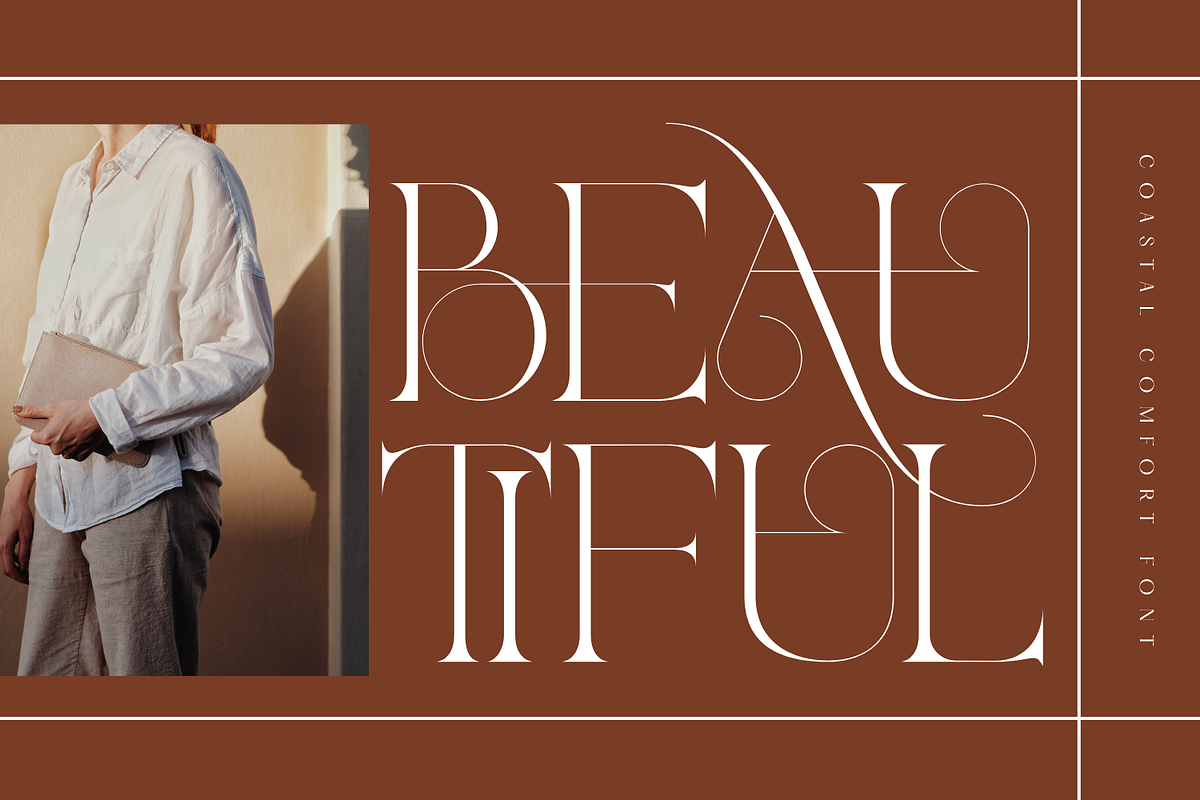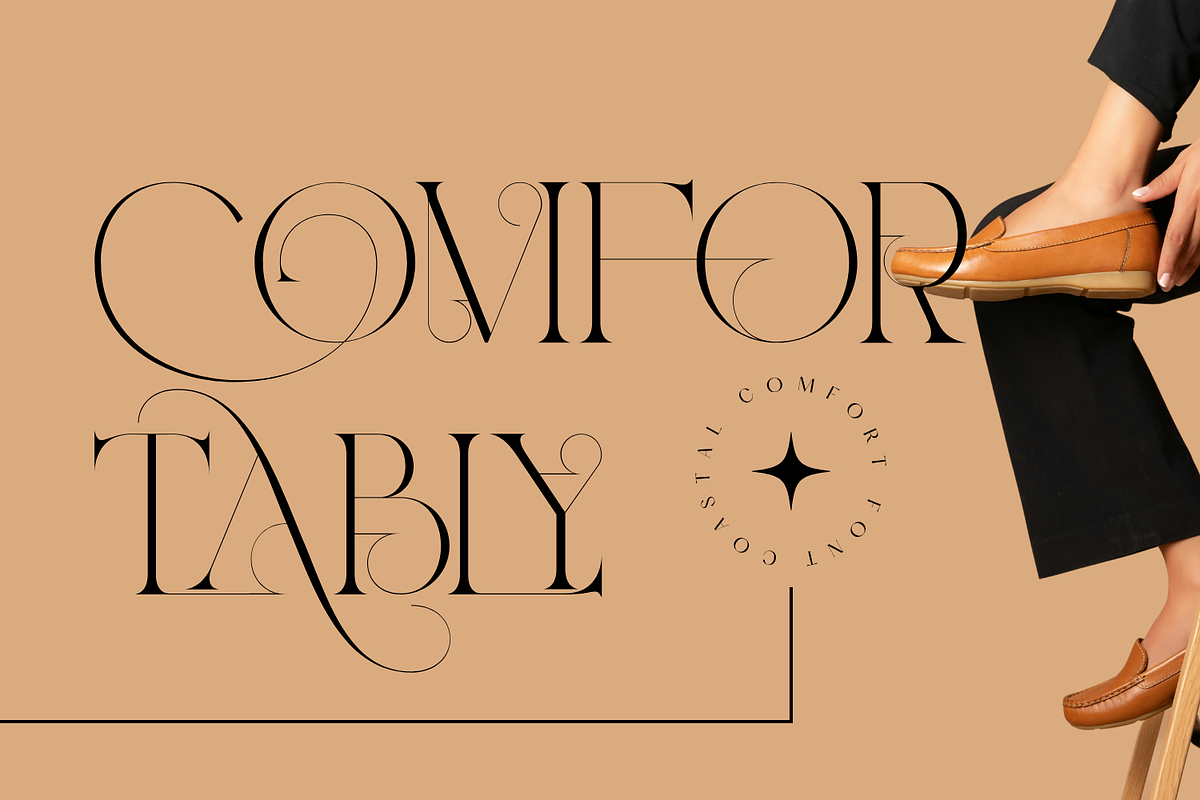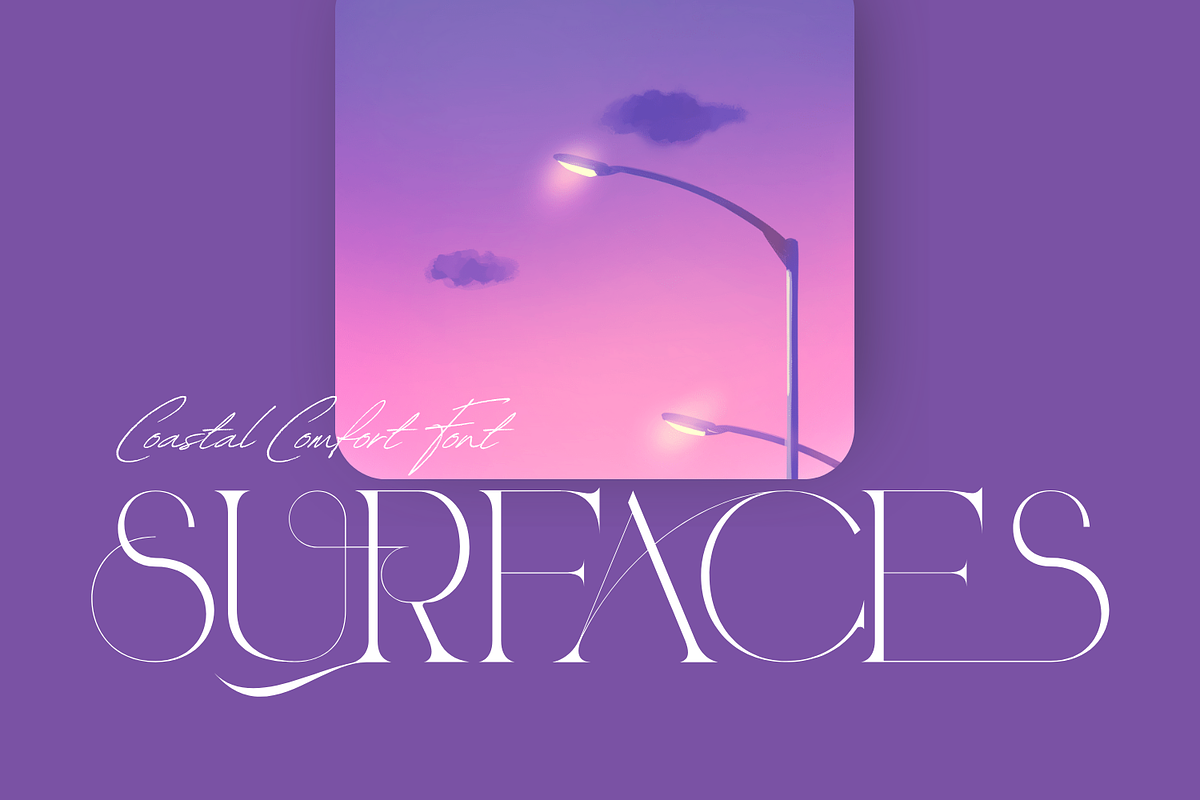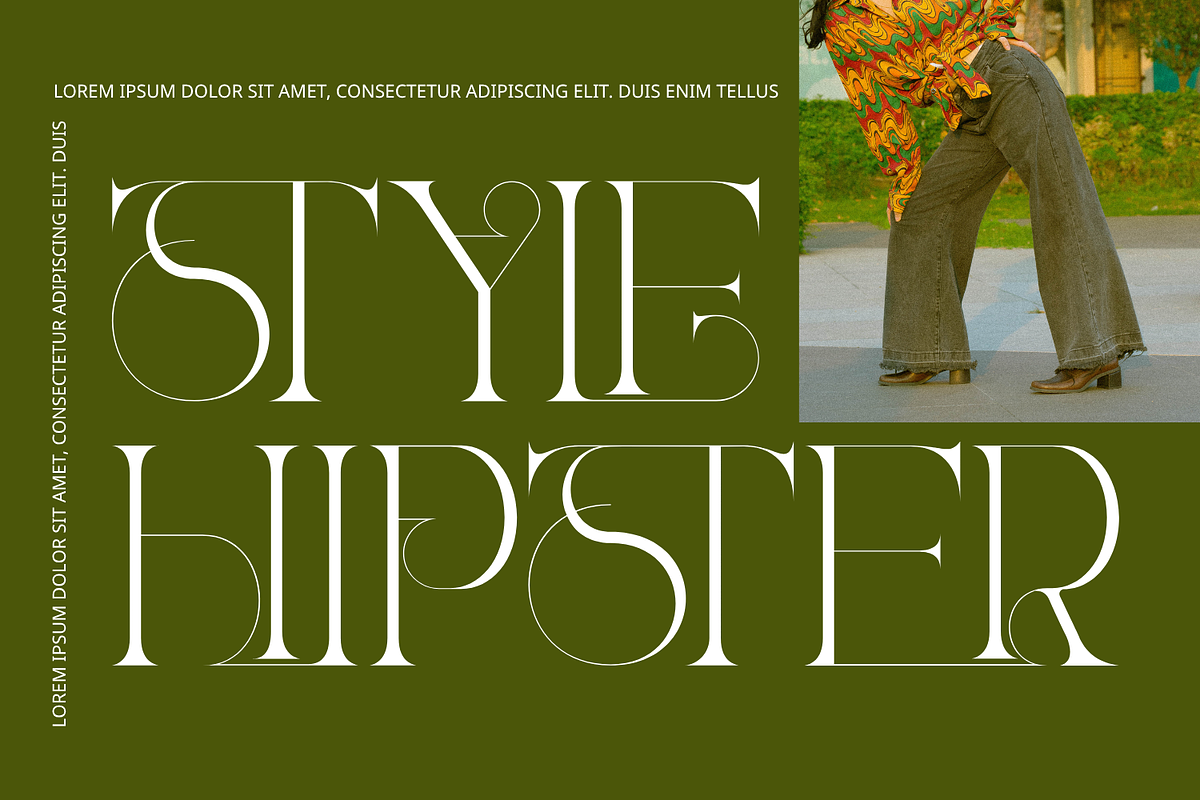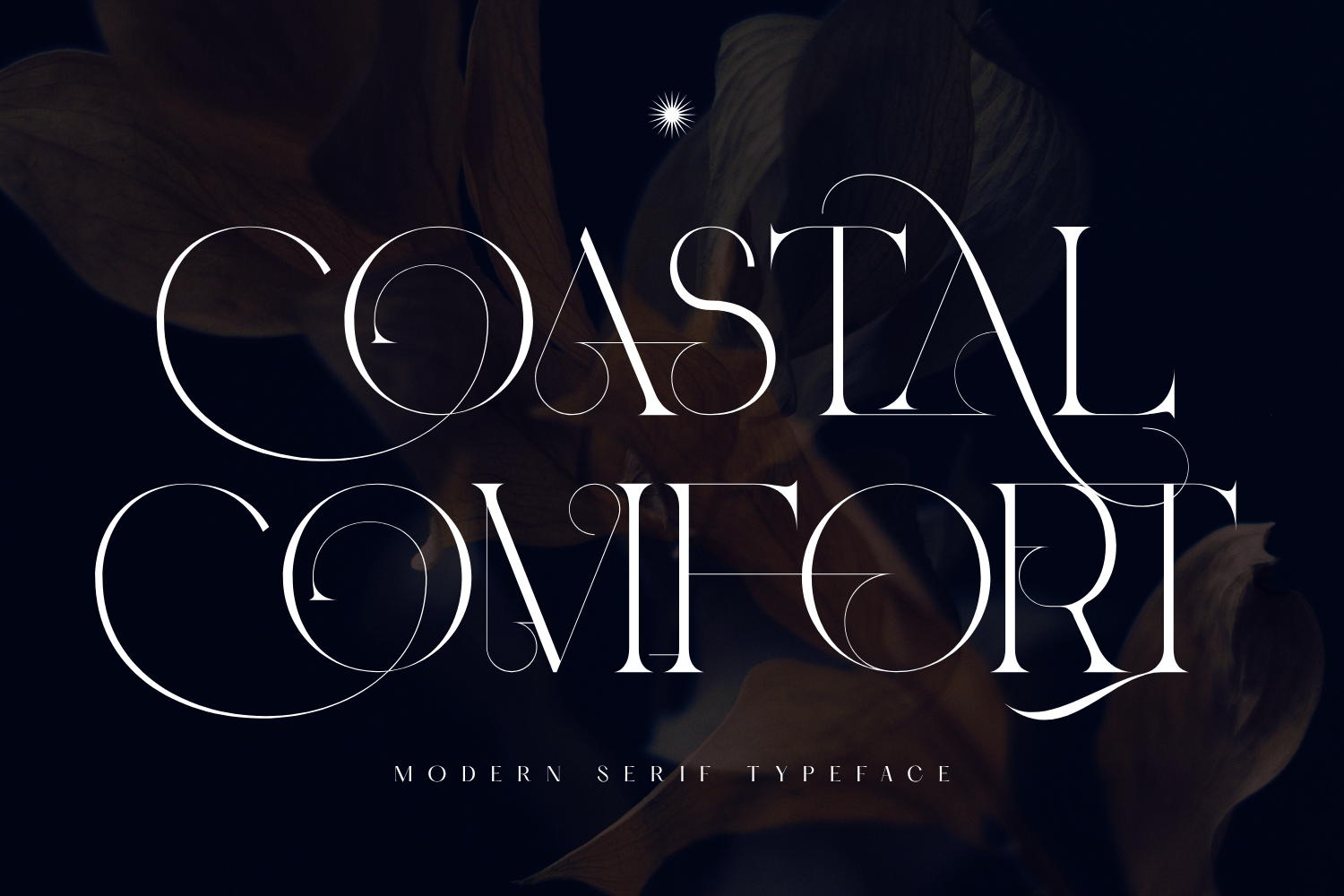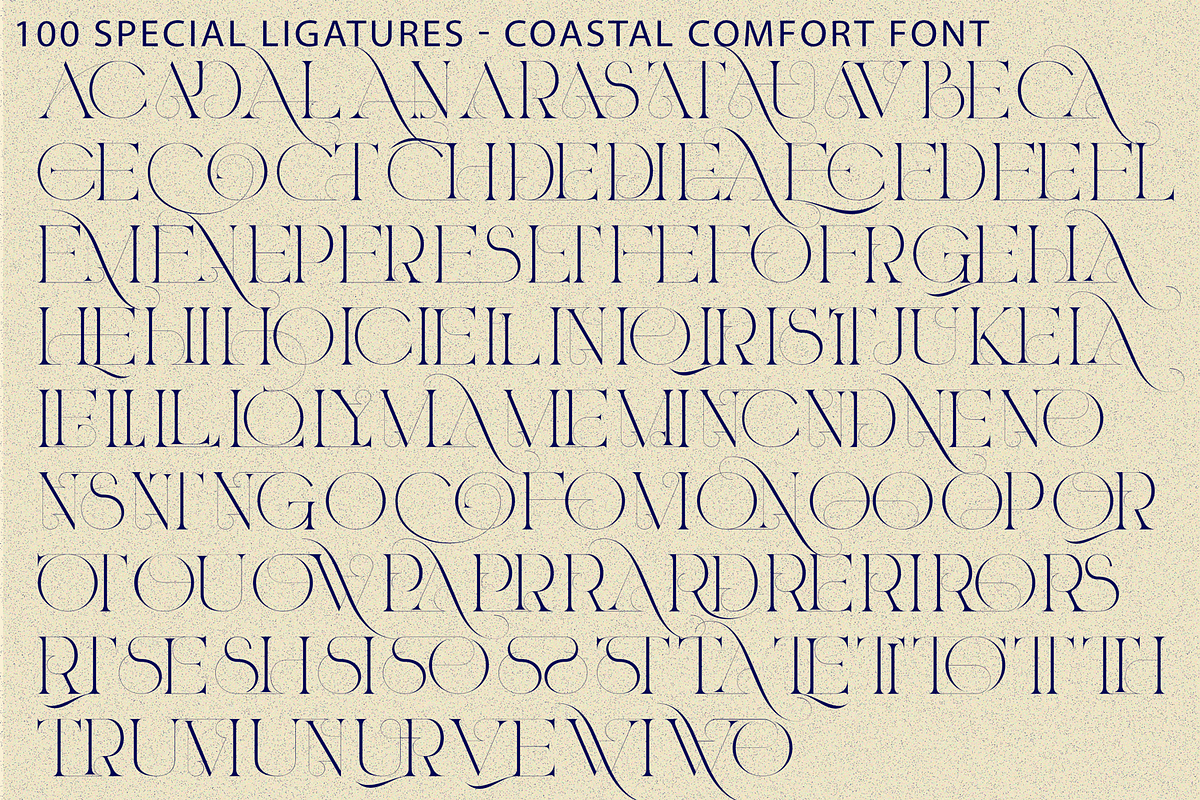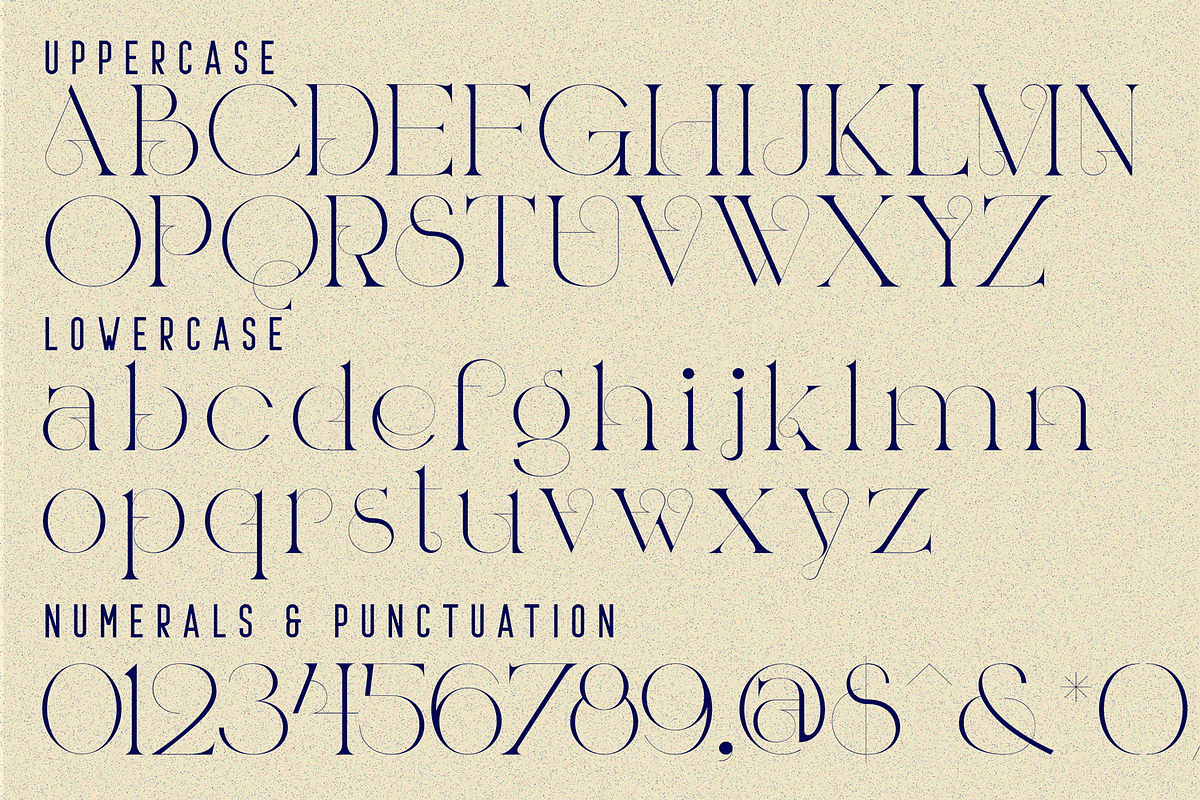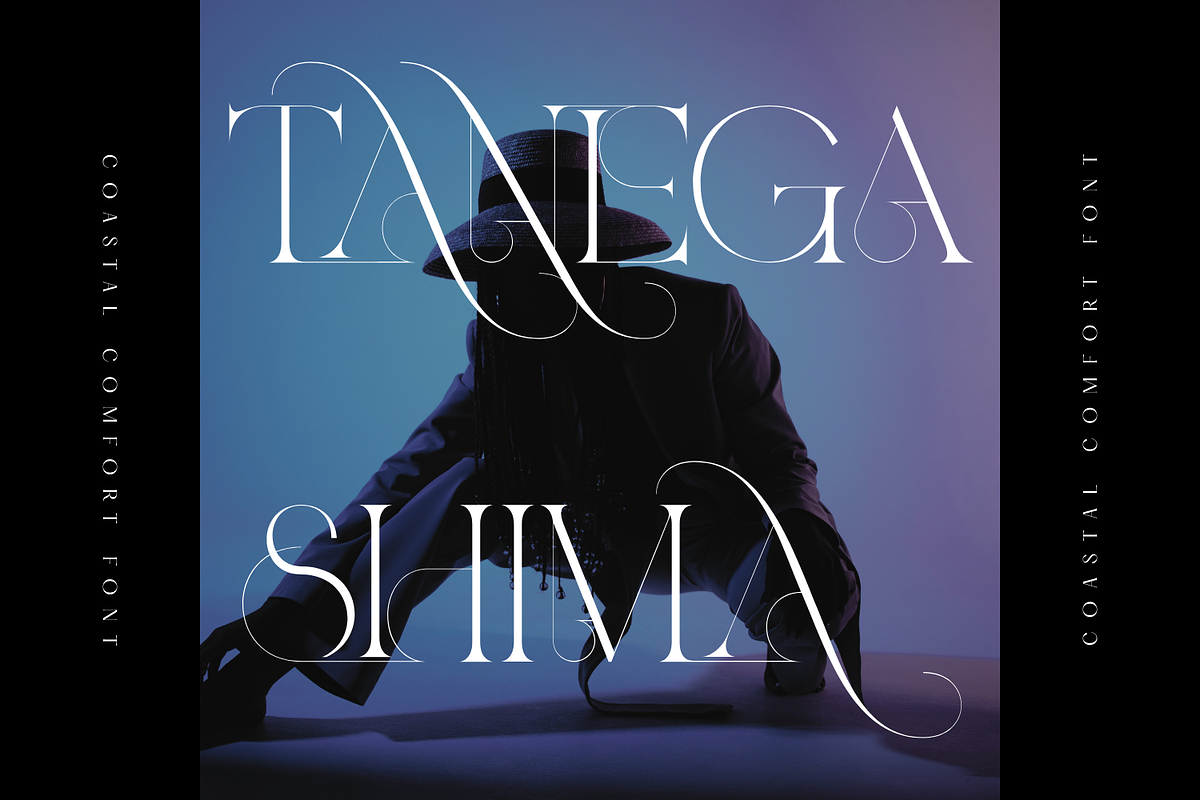
COASTAL COMFORT - LUXURY FONT
COASTAL COMFORT - LUXURY FONT is a luxury Didone-inspired serif display font designed with elegant proportions, dramatic contrast, and graceful calligraphic details. Its refined letterforms combine classic editorial beauty with long flowing swashes, creating a sophisticated and timeless visual presence. With delicate hairline details and expressive curves, COASTAL COMFORT is perfect for fashion branding, magazine headlines, wedding invitations, beauty packaging, luxury logos, and premium visual identities.
🔤Features:
Uppercase & Lowercase Letters
Around 100 Special Ligatures & Alternates
Accented Characters for multilingual support
🔤About 100 ligatures combined with Stylistic Alternates Font:
AC AD AL AN AR AS AT AU AV BE CA CE CH CO CT DE DI EA EC ED EE EL EM EN EP ER ES ET FE FO FR GE HA HE HI HO IE IC IL IN IO IR IS IT JU KE LA LE LI LL LO LY MA ME MI NC ND NE NG NO NT NS OC OF OM ON OO OP OR OT OU OW PA PR RA RD RE RI RO RS RT SE SH SI SO SS ST TA TE TH TI TO TR TT UM UN UR VE WI WO